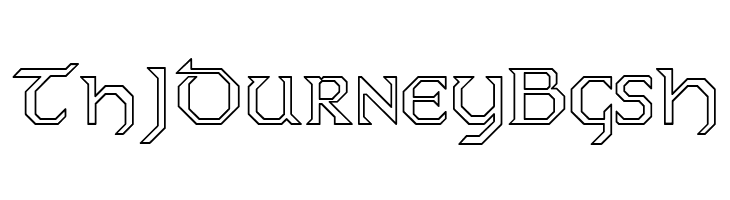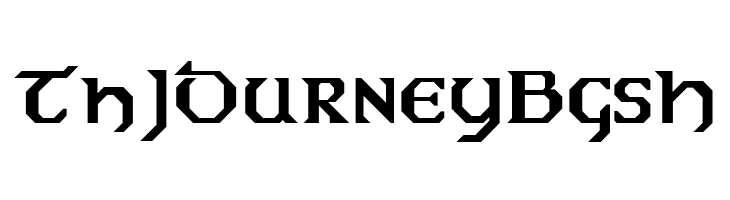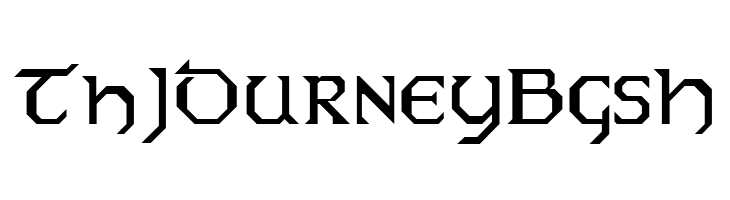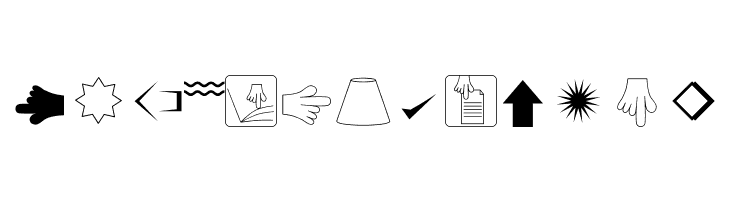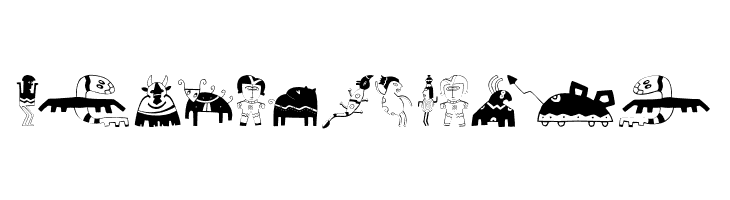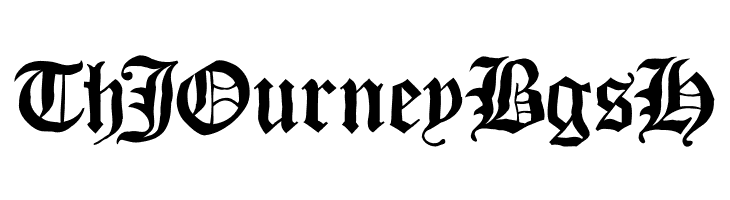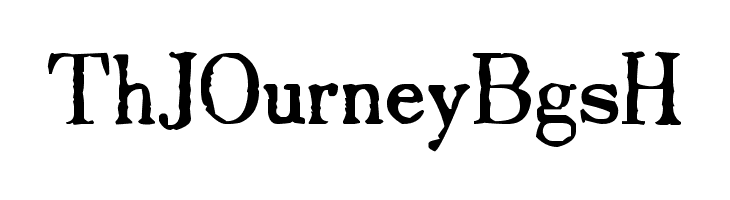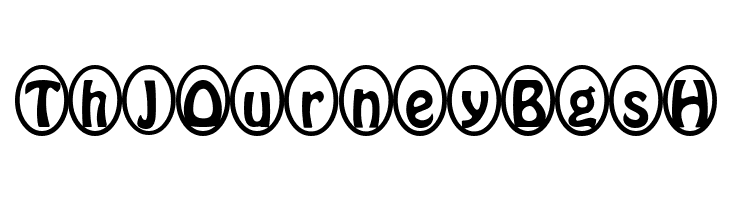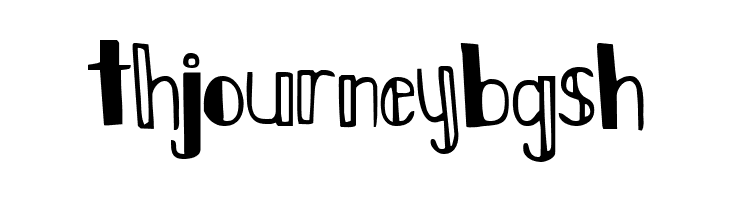
• Drop
( Digital Agent Factory - web.archive.org/web/20030621173551/daf.to/font.html )
A playful, bold font with characters enclosed in circles, offering a unique and cohesive look.
• Drukarnia Polska
( - polskaonline.org )
A vintage, distressed font with bold strokes and a hand-crafted appearance.
• DrunkenSailor
A bold, dramatic Blackletter-style font with intricate, angular designs.
• DTPDingbats
• Dublin
( Roger White - web.archive.org/web/20120416090521/www.rogersfonts.org.uk/ )
A bold, angular font with a modern blackletter style.
• Dublin Bold
( Roger White - web.archive.org/web/20120416090521/www.rogersfonts.org.uk/ )
A bold, angular font with a geometric, gothic-inspired design.
• Dublin Hollow
( Roger White - web.archive.org/web/20120416090521/www.rogersfonts.org.uk/ )
A geometric, hollow font with angular and futuristic elements.
• Duck Duck Goose
( Fresh Fonts - formerly at eccodomani.org/freshfonts/ )
A playful and whimsical font with unique, exaggerated character shapes.
• DueMillePix
A pictogram font with tribal and whimsical illustrated glyphs.
• DuererUnd
A quirky, illustrative dingbat font featuring abstract cartoon figures.